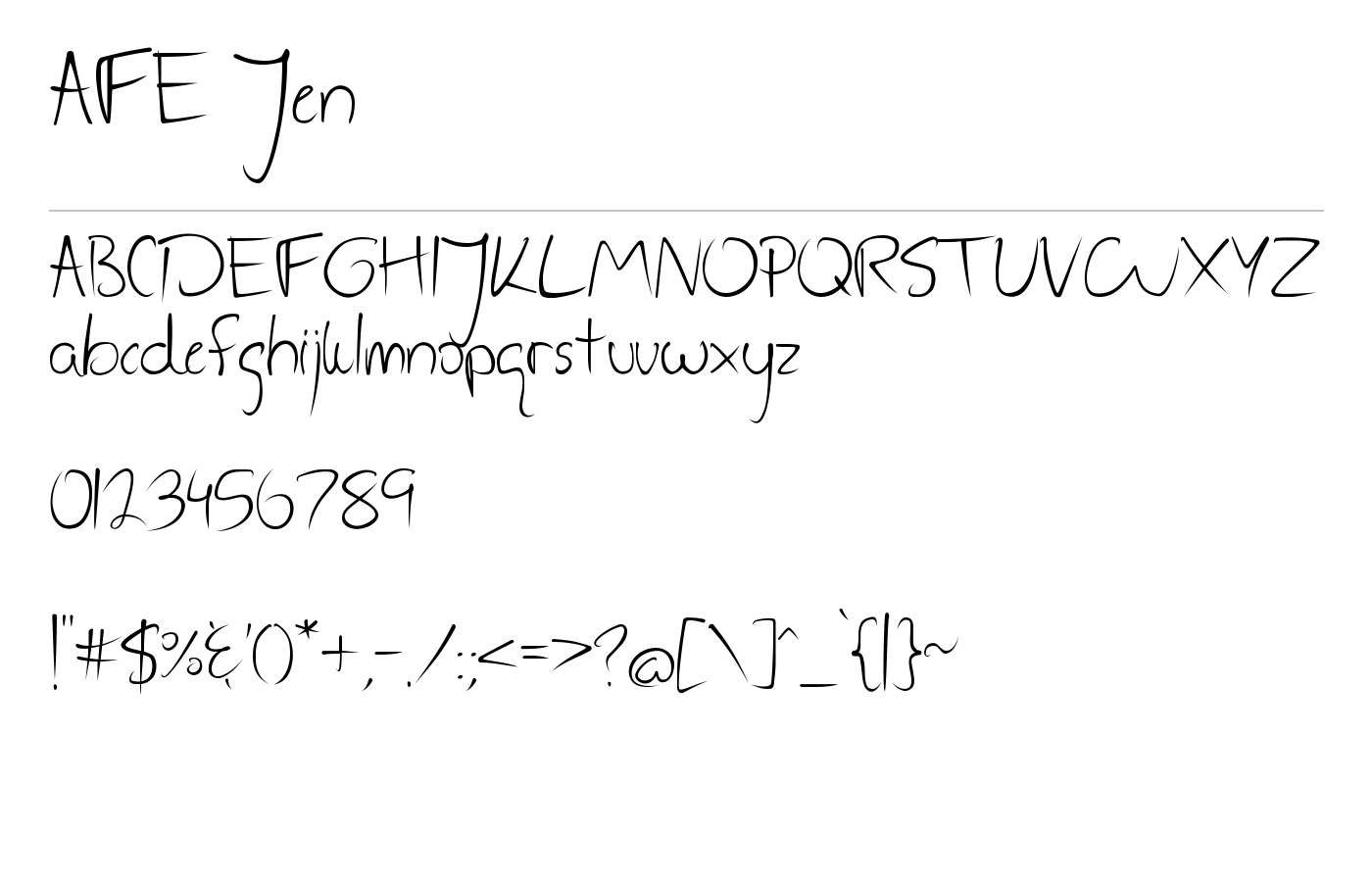
AFE Jen is a playful, handwritten sans serif font with a thin, delicate stroke and tall, narrow letterforms that give it an airy, casual feel. Its quirky, slightly uneven characters make it ideal for creative projects, personal branding, and informal design work where a friendly, approachable vibe is desired. This font works well for headlines, invitations, and social media graphics that need a unique, personal touch.
AFE Jen Font
About AFE Jen Font